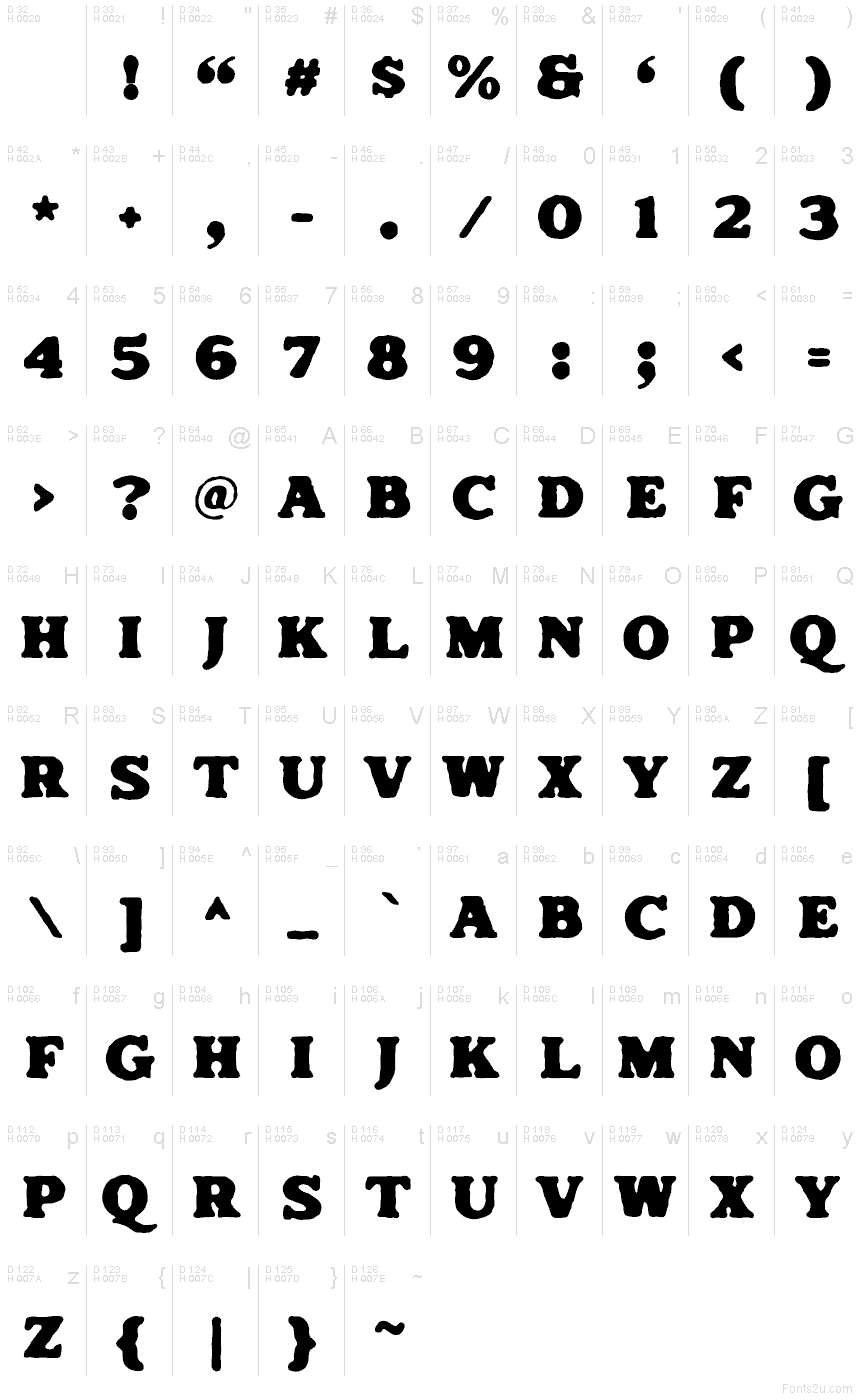
SummerSurfingSerif-Rough
Summer Surfing Serif Rough font by Edignwn Type offers an eroded, expanded display serif design. The unique appearance of the letters is enhanced by bold weights and retro characteristics. Their presence stands out thanks to the impressive amount of white space and instant recognizability. Achieve a strong impact in modern packaging or straightforward branding projects with style.